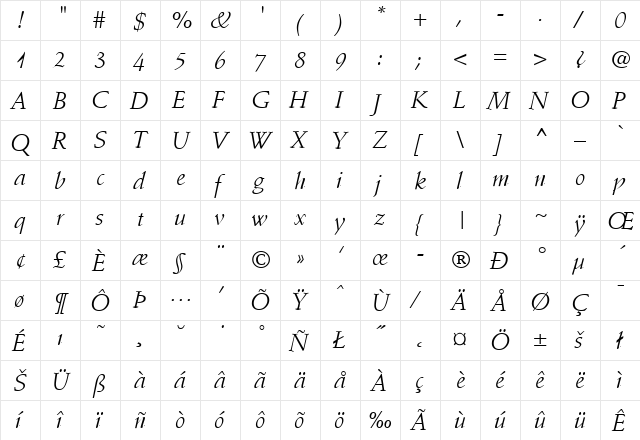
StempelSchneidler-Italic Regular
Design Context for StempelSchneidler-Italic Typeface
StempelSchneidler-Italic is a composed and adaptable typeface that performs quietly and consistently across a wide range of design contexts. The slanted form adds forward momentum and visual energy.
Pro Tip: Try StempelSchneidler-Italic for annotation and caption copy alongside an upright companion — the contrast in angle creates a dynamic but ordered typographic system.